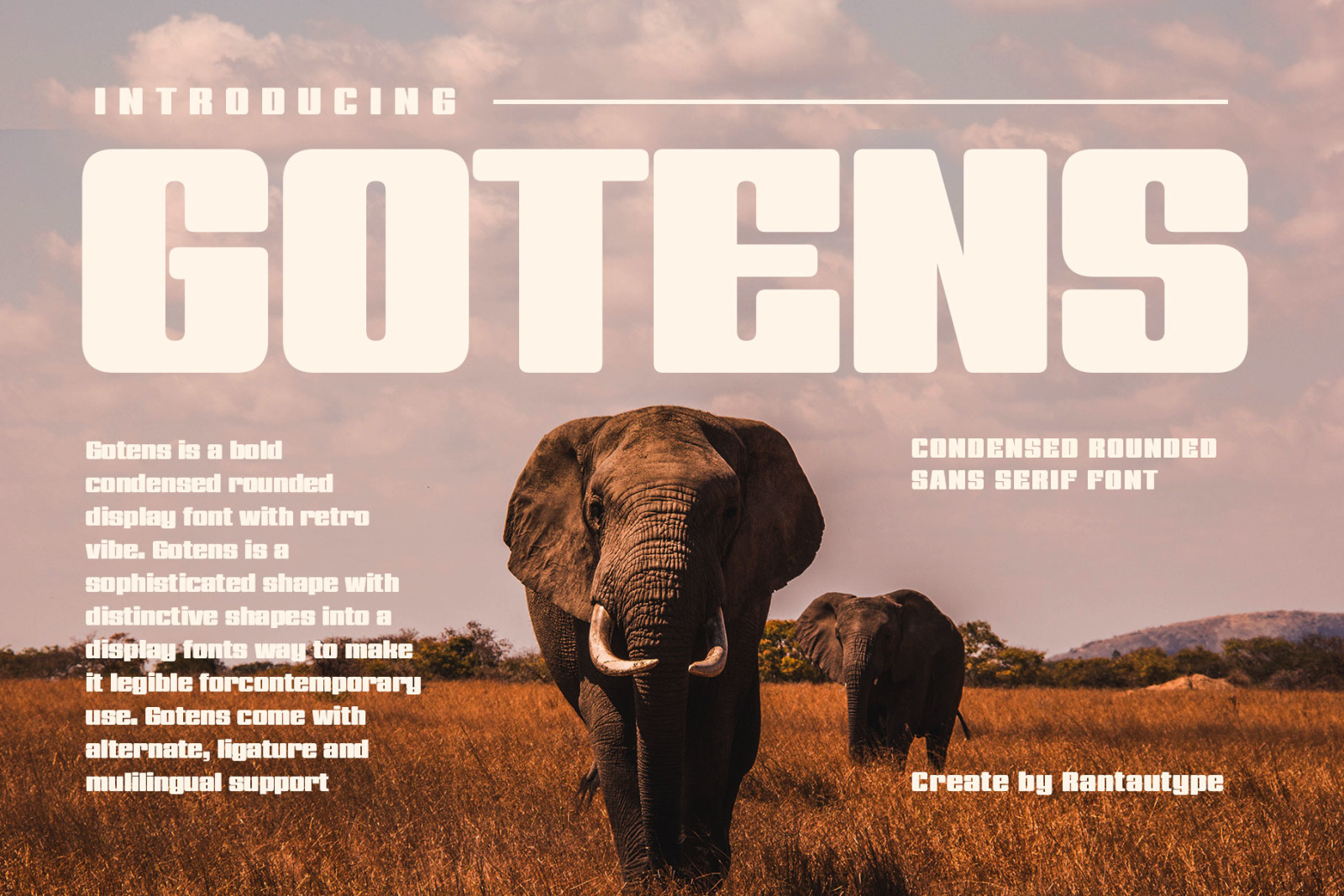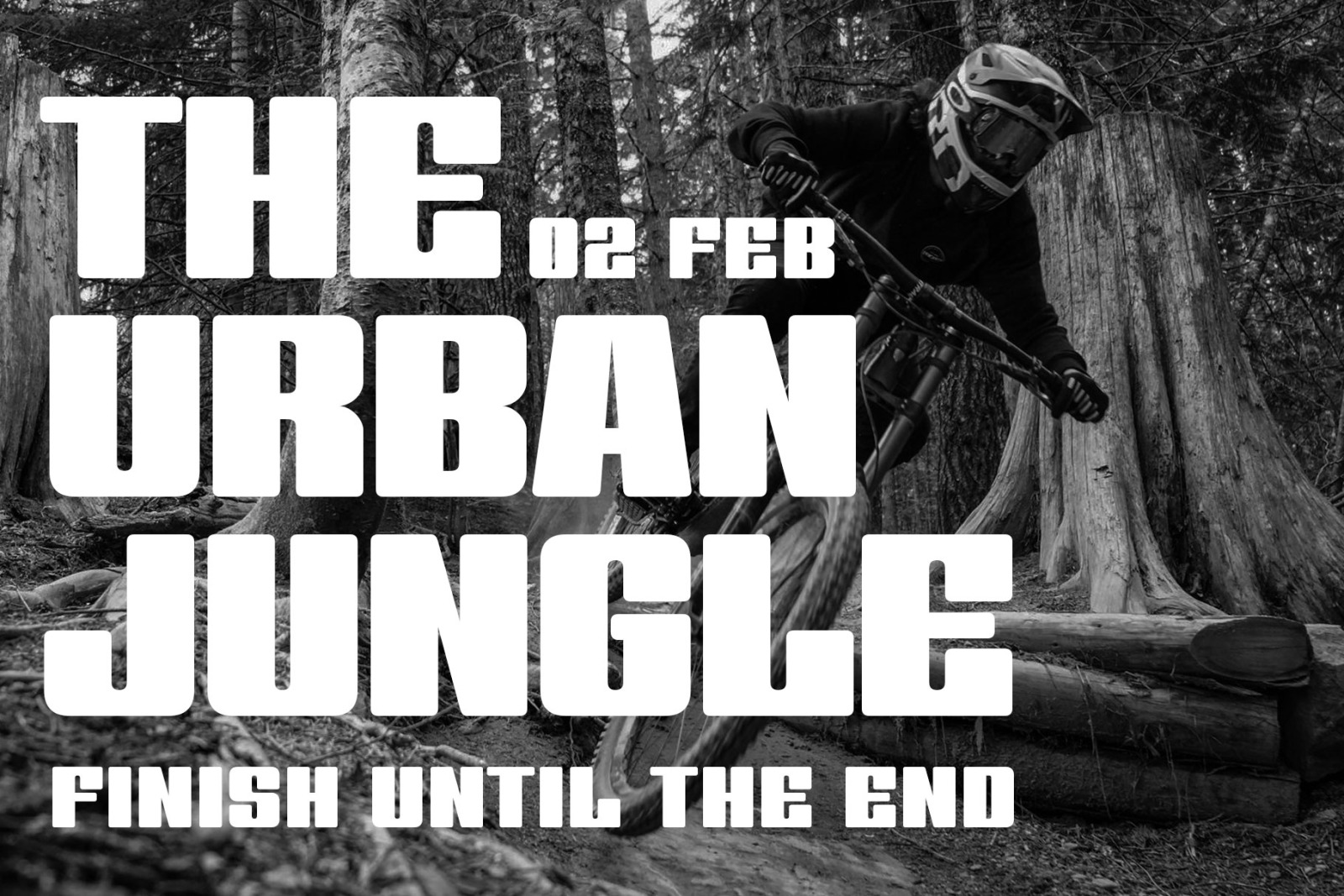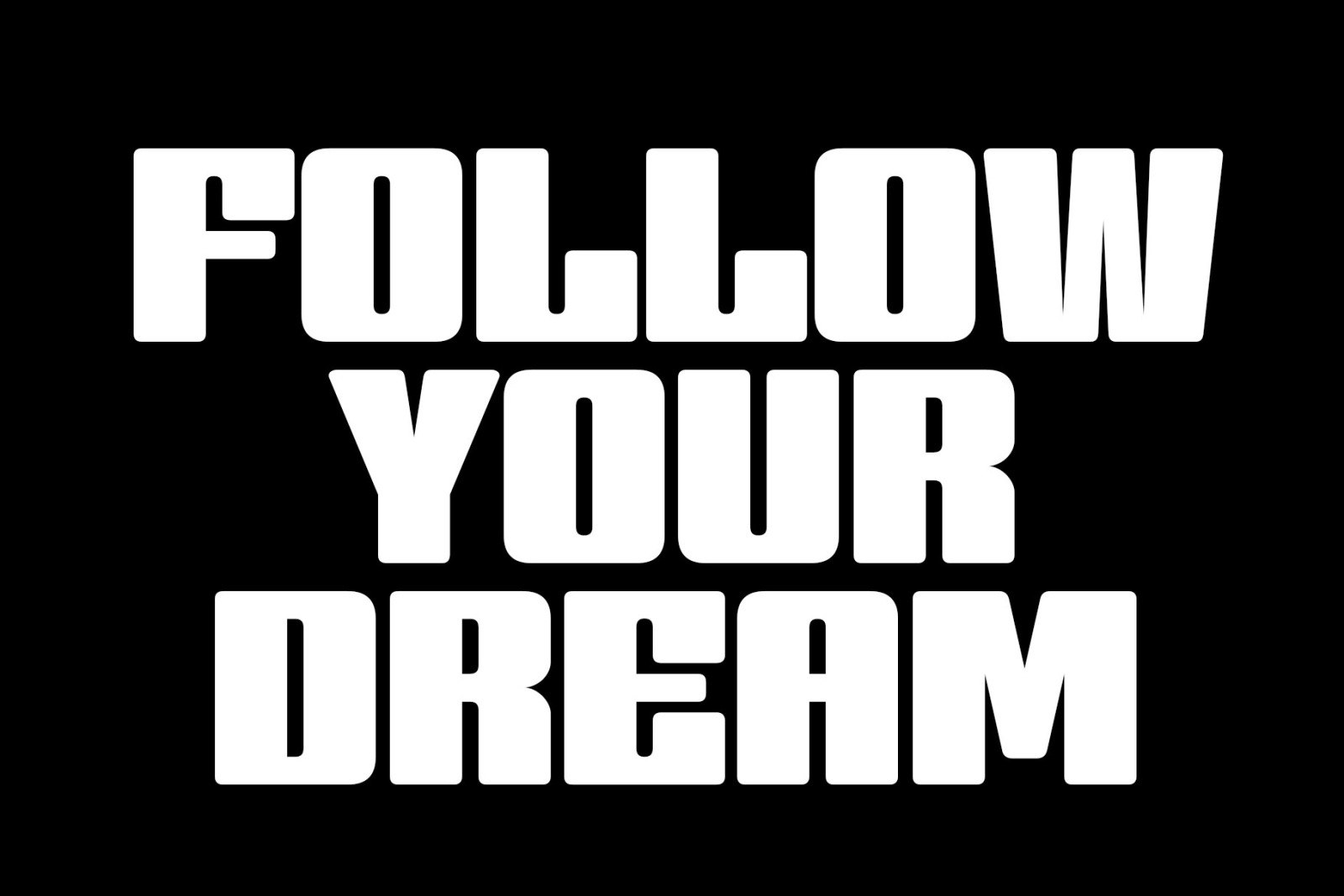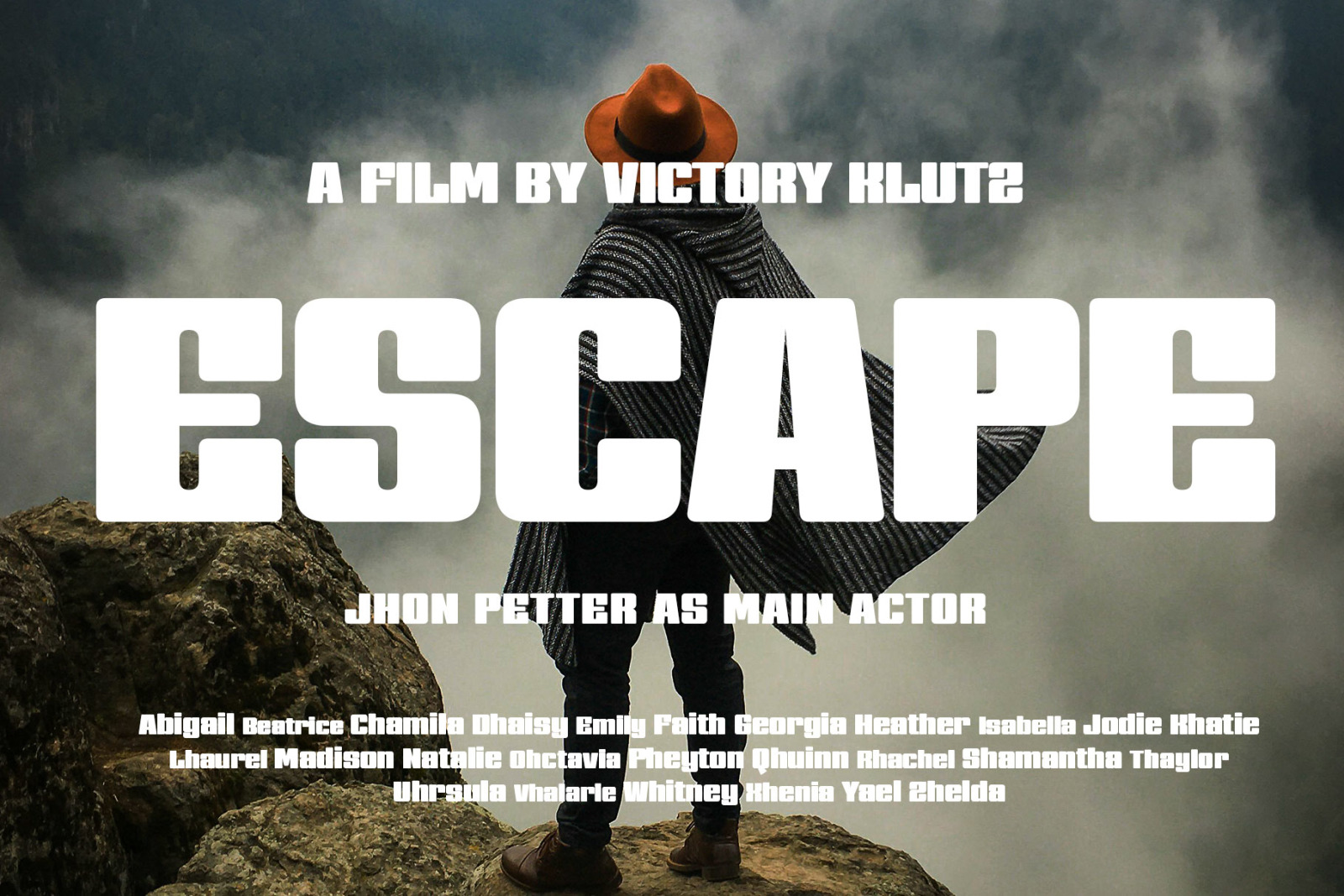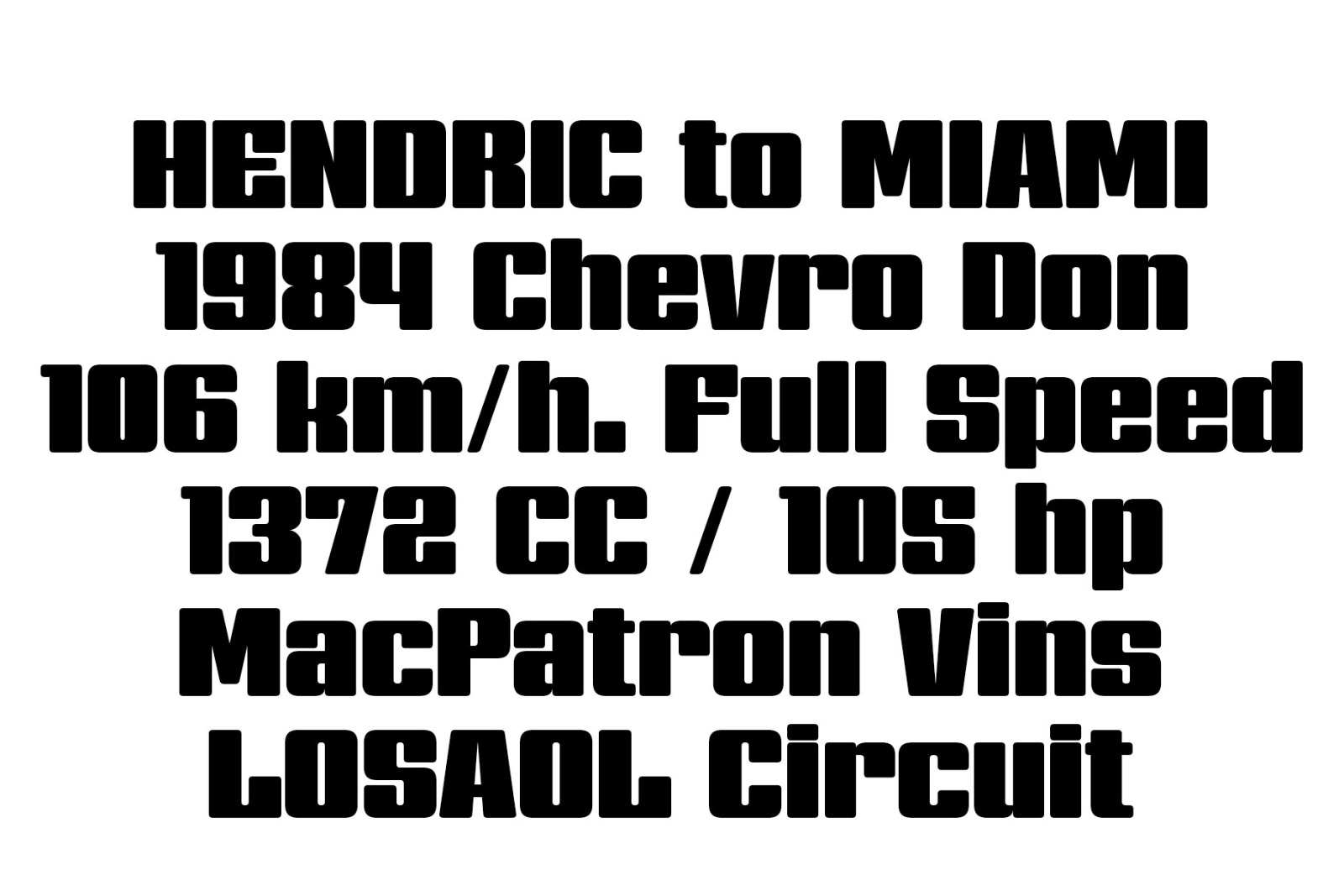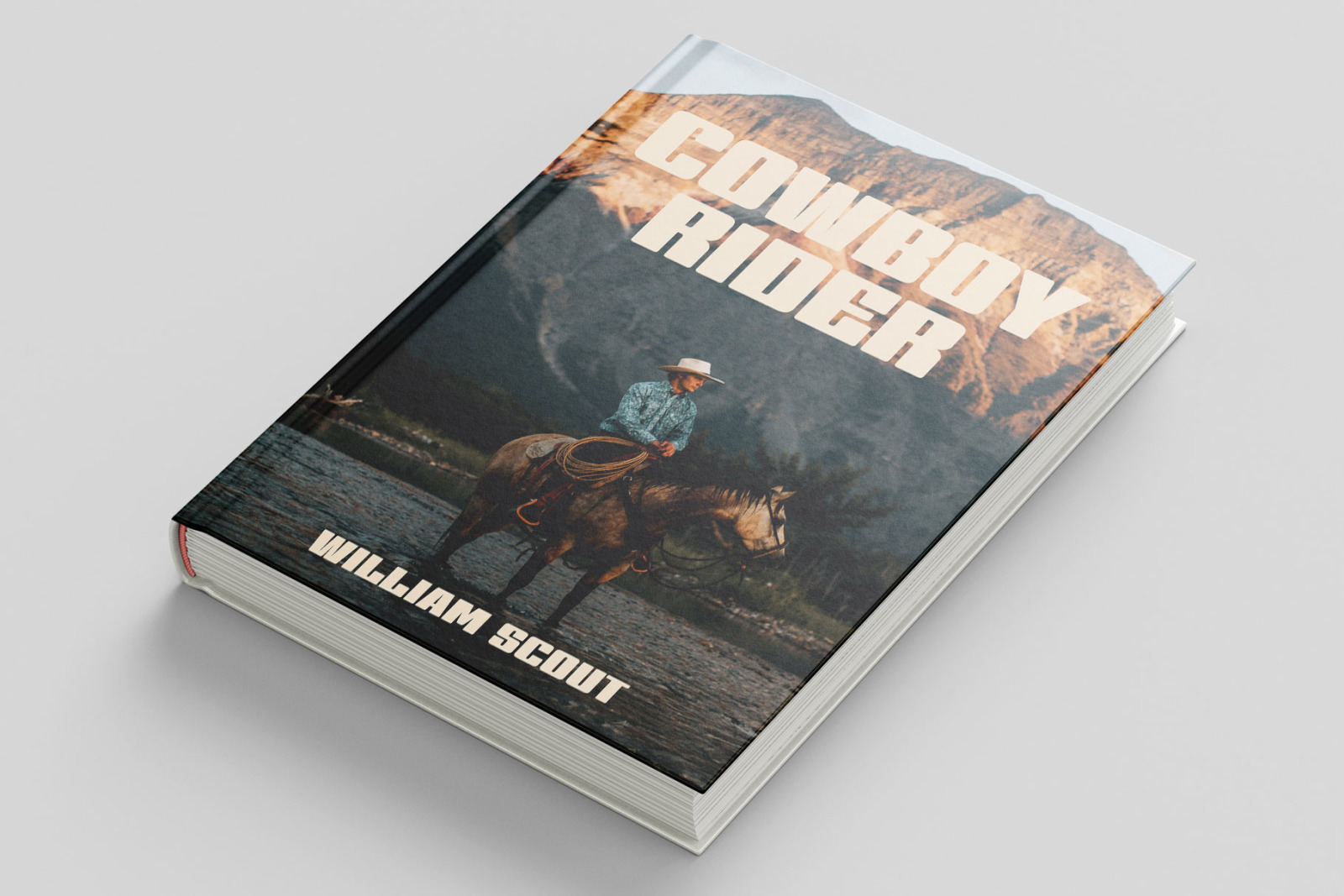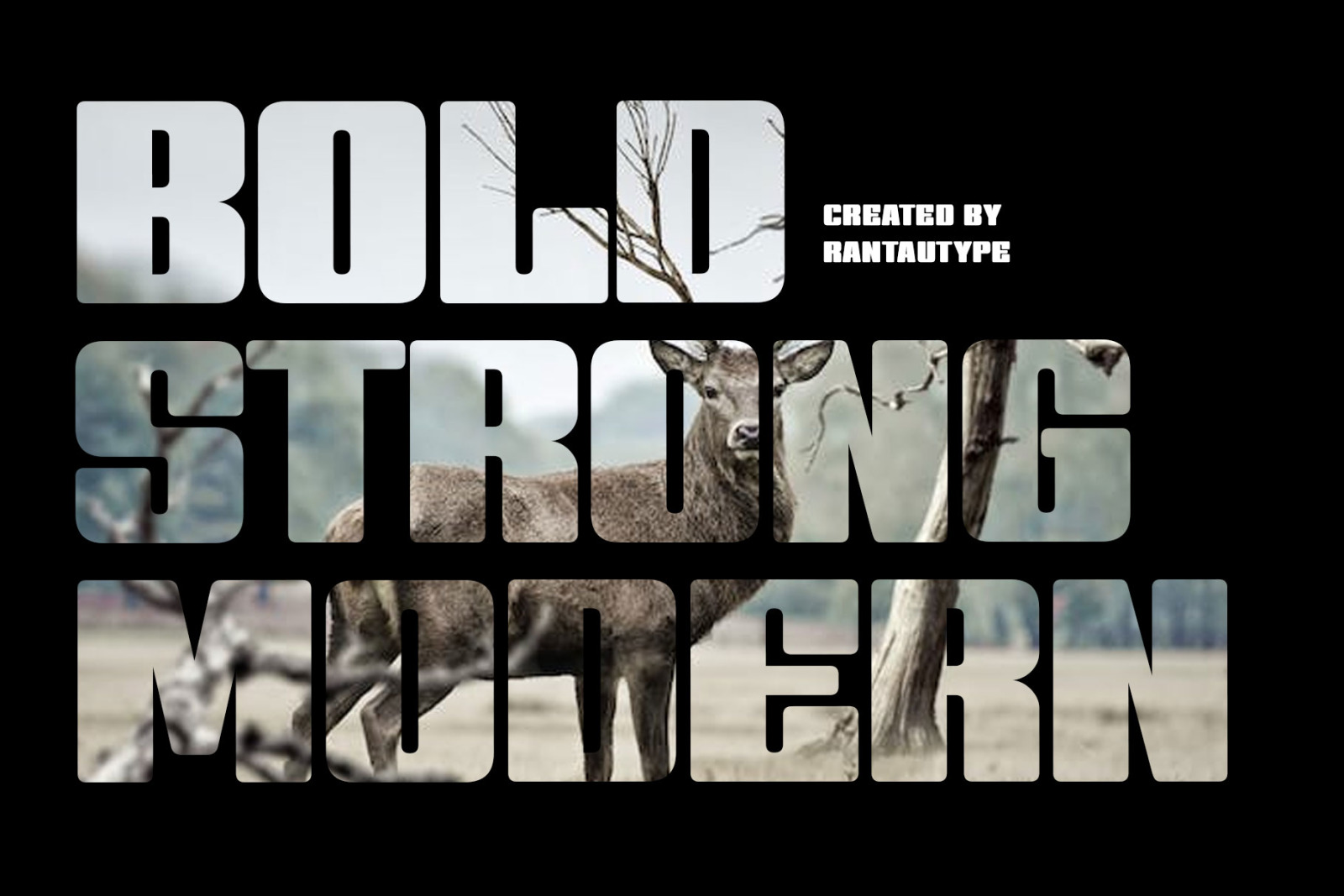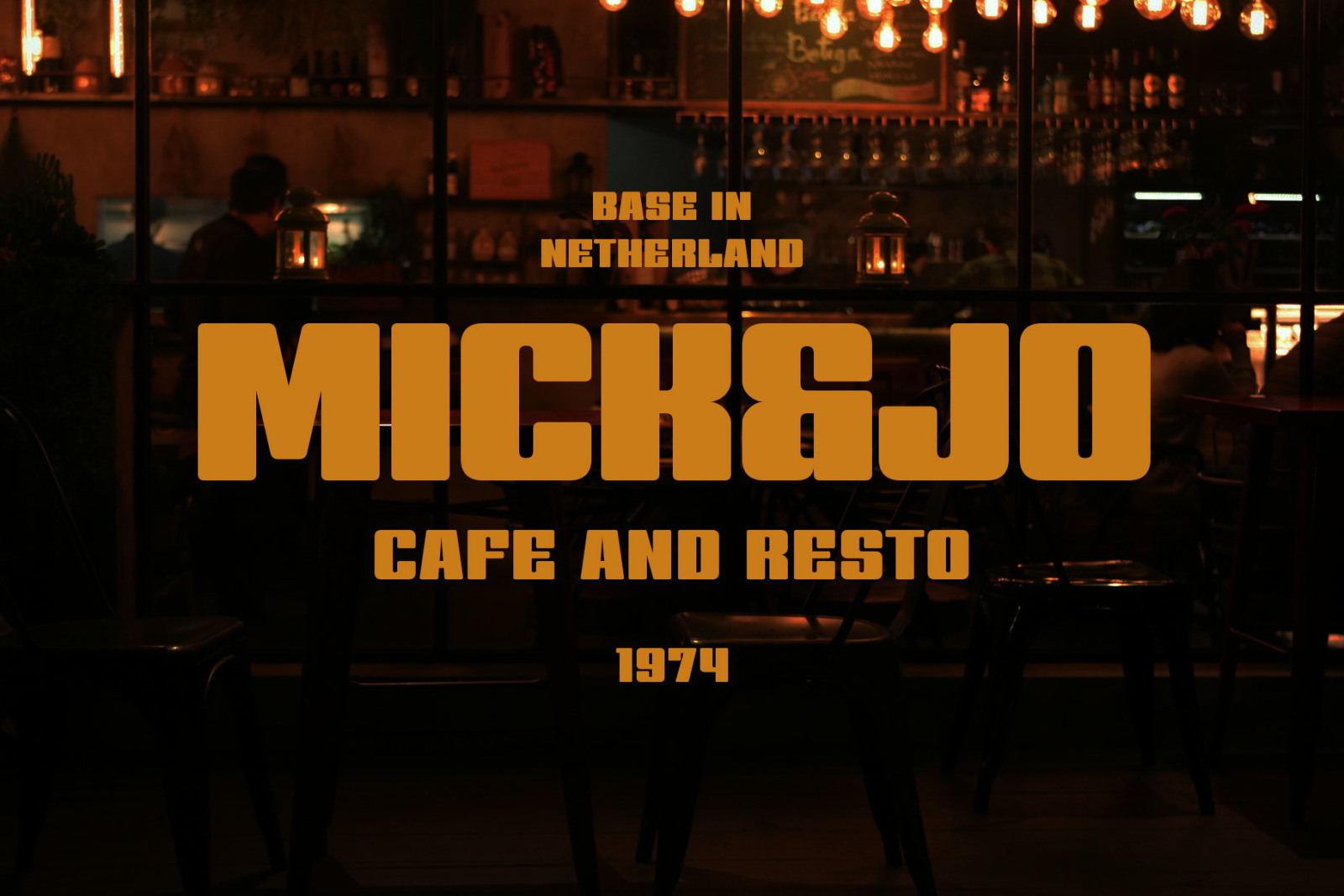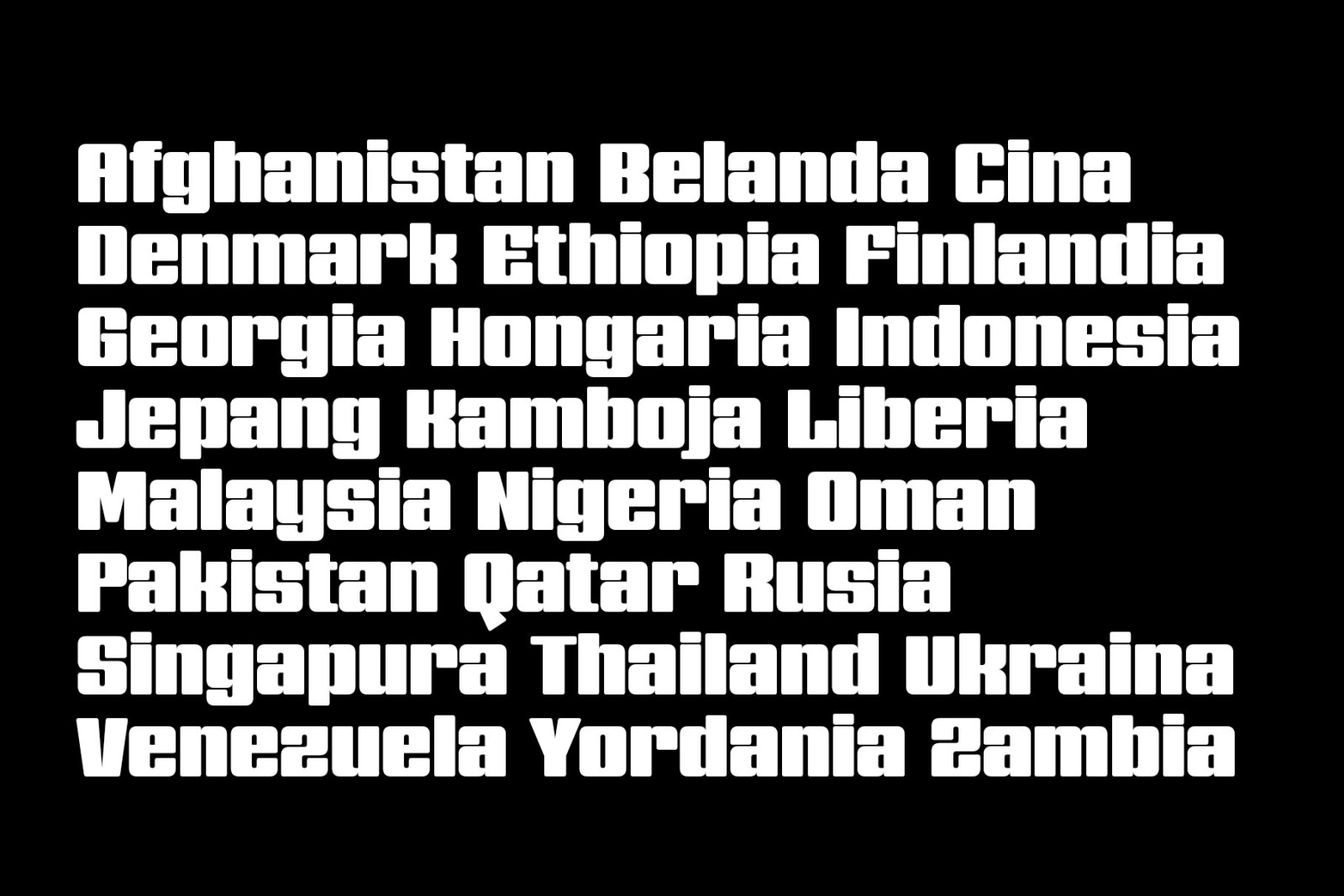
Gotens Bold Condensed Display Font
Gotens is a bold condensed rounded display font with retro vibe. Gotens is a sophisticated shape with distinctive shapes into a display fonts way to make it legible for contemporary use. Gotens come with alternate, ligature and mulilingual support
Gotens is a beautiful choice for any creative endeavor, chic, lifestyle design such as logos, title, cover, branding, display, magazine and more. Now you using Gotens to elevate you design or branding.